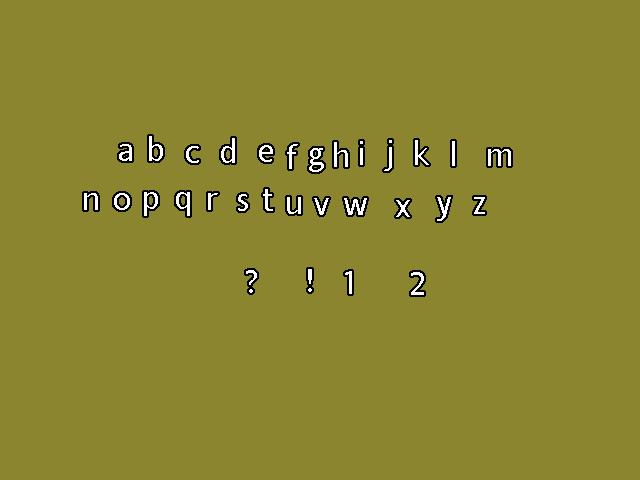
This common subtitle font was used on Disney DVD's from 2000-2002, as well as many 20th Century Fox and Universal Studios DVD's.
But the problem is, I have NO IDEA what font this subtitle sample is. Any help appreciated.
P.S. The font I know of that was used on early DVD's from 1997-2000, is Arial Rounded MT.
2. Looks like a variation of Helvetica Light. Ariel is a variation of Helvetica (to avoid copyright issues).
Do you realize that subtitles on DVDs are graphics, not text? You have no control over what they look like.
looks like Strada Cond TF-Light
WhatTheFont identified Strada Cond Light as a pretty close match.
Actually, the "1" on that font doesn't match with the "1" as seen on the actual DVD subtitles.
6. Did it occur to you that a multi-billion dollar creative company like Disney may create their own fonts?
OK, to make things even easier, here's what the font is supposed to look like. It contains all 26 letters of the lowercase alphabet, the punctuation marks, and the first two numerals.